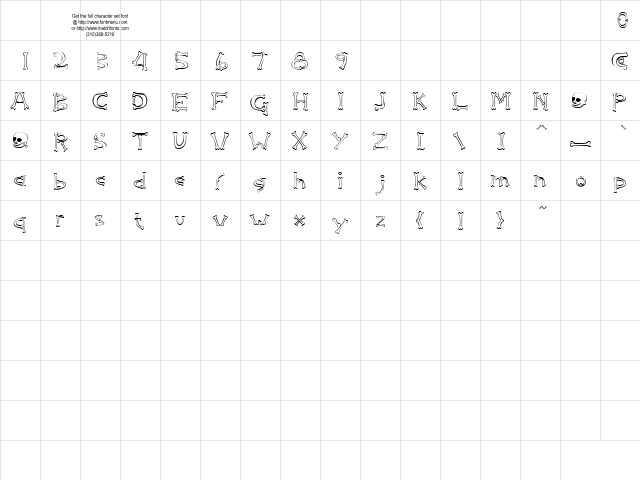
Osselets Regular
Design Context for Osselets Typeface
Osselets is a composed and adaptable typeface that performs quietly and consistently across a wide range of design contexts.